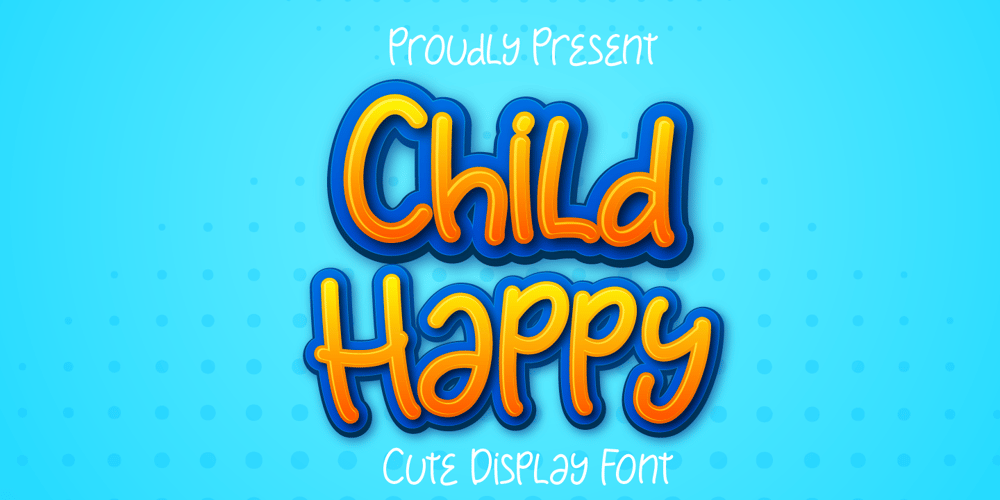
Child Happy Font Family was designed by Mohamad Candirah and published by MC Creative. Child Happy contains 1 styles and family package options. Child Happy is a delightful display font. It embodies playfulness and authenticity and is perfect for children themed designs, especially when combined with bright colors. perfect for branding projects, logo, wedding designs, social media posts, advertisements, product packaging, product designs, label, photography, watermark, invitation, stationery and any projects that need handwriting taste. What’s Included : Standard Glyphs Ligature Works on PC & Mac Simple installations Accessible in the Adobe Illustrator, Adobe Photoshop, Adobe InDesign, even work on Microsoft Word. PUA Encoded Characters – Fully accessible without additional design software. Fonts include multilingual support for; ä ö ü Ä Ö Ü ß ¿ ¡